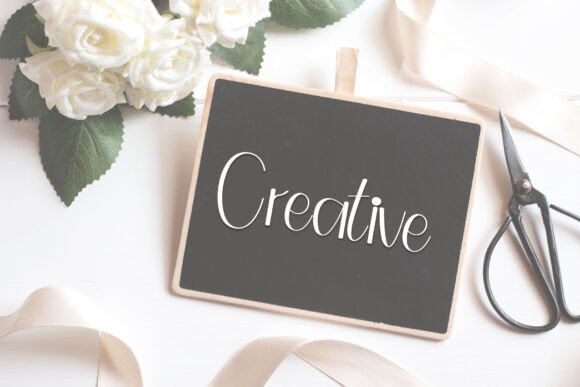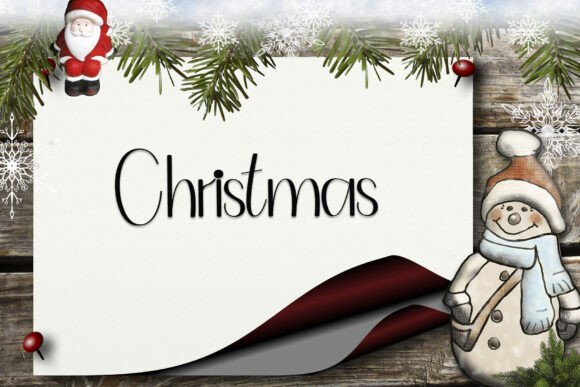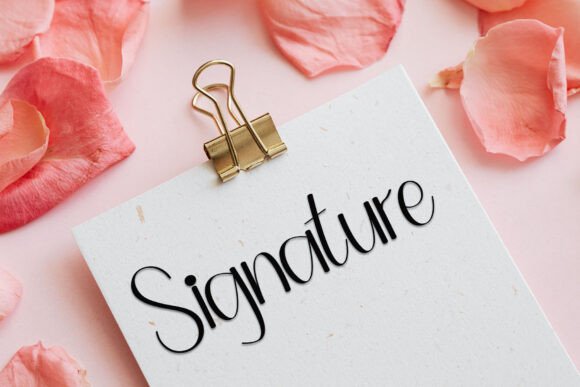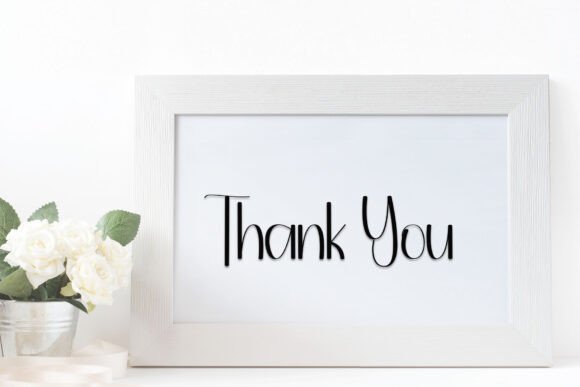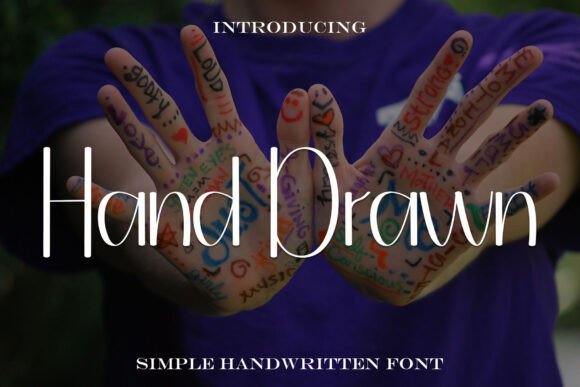
Introducing Hand Drawn: The Sweet and Cursive Handwritten Font
Are you looking for a font that can add a touch of elegance and whimsy to your designs? Look no further than Hand Drawn, a beautiful and cursive handwritten font that is perfect for a variety of design projects. With its gentle and sweet appearance, Hand Drawn is sure to bring a joyful and romantic touch to your work.
What Makes Hand Drawn Special?
Hand Drawn is a unique and charming font that is perfect for designers and crafters who want to add a personal touch to their work. This font is carefully crafted to resemble handwriting, with each letter and word flowing smoothly into the next. The result is a font that looks elegant and refined, yet still casual and approachable.
One of the best things about Hand Drawn is its versatility. This font can be used for a wide range of design projects, including:
- Branding: Use Hand Drawn to create a unique and memorable logo for your business or brand.
- Wedding Design: Add a touch of romance and elegance to your wedding designs, including invitations, programs, and decorations.
- Greeting Cards: Use Hand Drawn to create beautiful and personalized greeting cards for any occasion.
- Fashion: Add a touch of style and sophistication to your fashion designs, including lookbooks, marketing materials, and more.
- Marketing Promotion: Use Hand Drawn to create eye-catching and effective marketing materials, including flyers, brochures, and social media graphics.
Why Choose Hand Drawn?
There are many reasons why Hand Drawn is the perfect font for your design projects. Here are just a few:
- Elegant and Refined: Hand Drawn has a sophisticated and elegant appearance that is perfect for designs that require a touch of luxury.
- Casual and Approachable: Despite its elegant appearance, Hand Drawn is still a casual and approachable font that is perfect for designs that require a personal touch.
- Easy to Read: Hand Drawn is a clear and easy-to-read font, making it perfect for designs that require a lot of text.
- Highly Versatile: Hand Drawn can be used for a wide range of design projects, from branding and wedding design to fashion and marketing.
Tips for Using Hand Drawn
Here are a few tips for getting the most out of Hand Drawn:
- Use it with Other Fonts: Hand Drawn pairs well with a variety of other fonts, so don’t be afraid to experiment with different combinations.
- Experiment with Colors: Hand Drawn looks great in a variety of colors, so try experimenting with different hues and shades to find the perfect look for your design.
- Pay Attention to Spacing: Make sure to pay attention to the spacing between letters and words when using Hand Drawn. This will help to ensure that your design looks elegant and refined.
Hand Drawn is a beautiful and versatile font that is perfect for designers and crafters who want to add a touch of elegance and whimsy to their work. With its gentle and sweet appearance, Hand Drawn is sure to bring a joyful and romantic touch to your designs. Whether you’re working on a branding project, wedding design, or marketing materials, Hand Drawn is the perfect choice.
Get Ready to Fall in Love with Hand Drawn